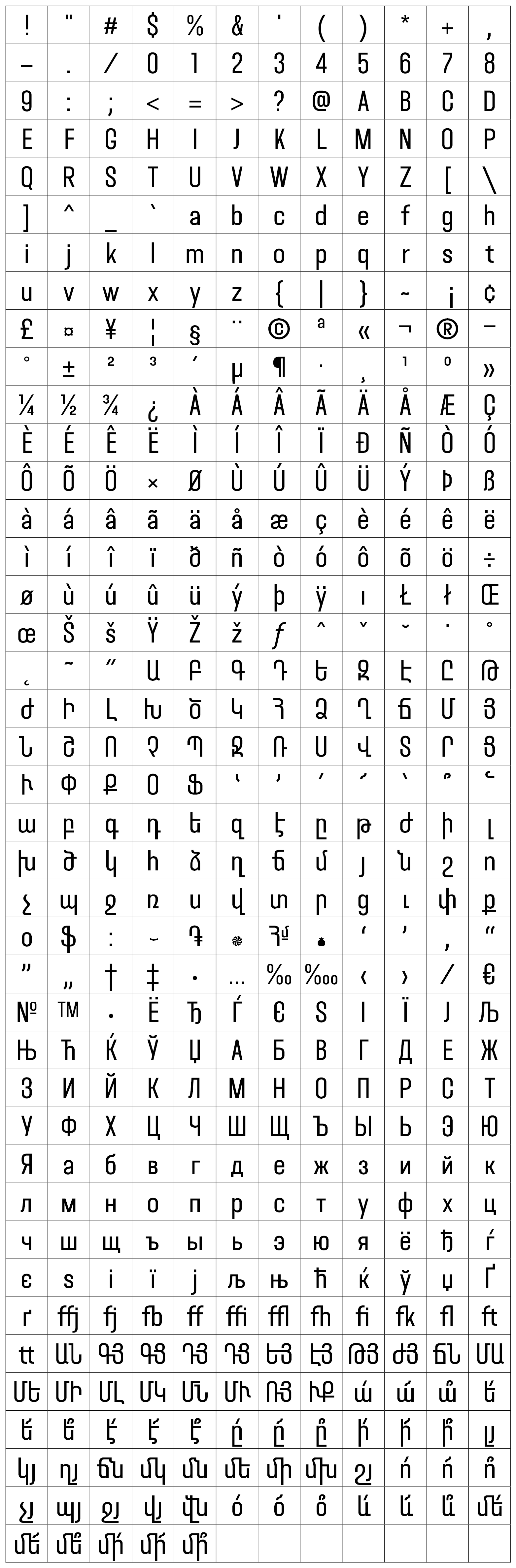
GHEA Avetiq Condensed Regular
Design date: 2021
The font family includes Armenian, Latin Centra European and Cyrillic alphabet systems.
The font can be used as a text and Display font.